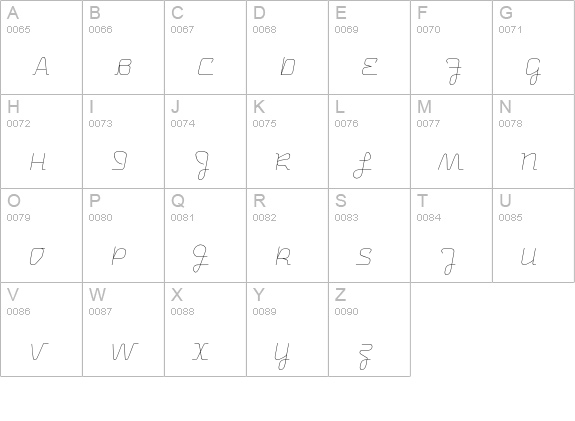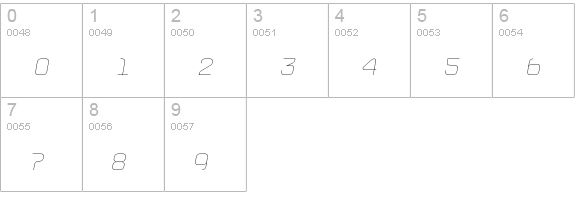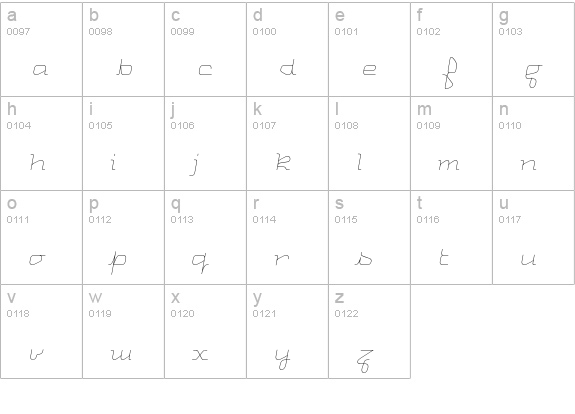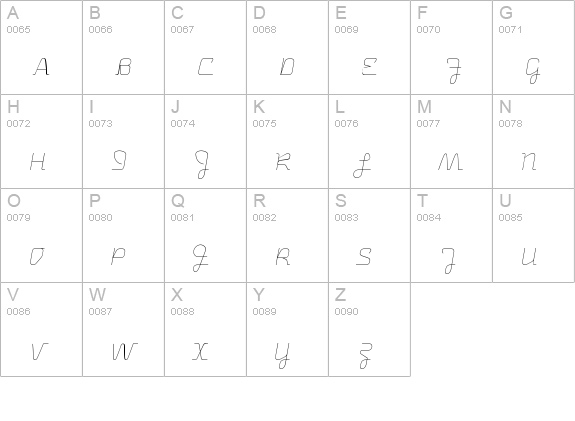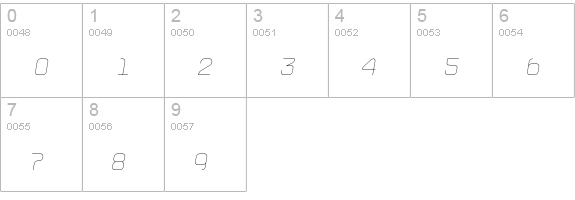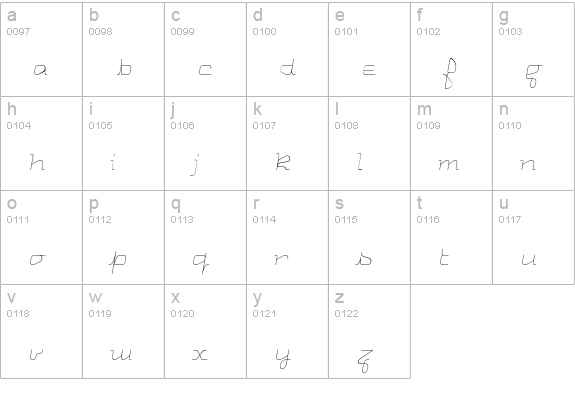
Uniglow-TenCursive Font Details
Uniglow-TenCursive is a beautifully designed font that exudes elegance and sophistication. Its flowing and graceful cursive style brings a touch of artistry to any project. Whether you're creating invitations, advertisements, or simply adding a touch of charm to your personal documents, Uniglow-TenCursive is the perfect choice. This font features smooth and continuous lines, capturing the essence of handwriting with its natural and organic feel. Each letter is meticulously crafted, ensuring a seamless and harmonious flow from one character to the next. The result is a font that effortlessly combines legibility with artistic flair. Uniglow-TenCursive is not only visually stunning but also incredibly versatile. Its clean and refined appearance makes it suitable for a wide range of applications, from formal business materials to creative and artistic projects. Whatever your design needs may be, this font will add a touch of sophistication and class. One of the best things about Uniglow-TenCursive is that it is absolutely free. Yes, you read that right – this exceptional font is freely available to download at FontsMarket.com. Now, you can enhance your designs without having to worry about any additional costs. This font allows you to unleash your creativity without any limitations or restrictions. So, why wait? Download Uniglow-TenCursive today and experience the beauty and versatility of this exceptional font. Whether you're a professional designer or a passionate hobbyist, this font is sure to become your go-to choice for all your typographic needs. Let Uniglow-TenCursive inspire your creativity and elevate your designs to new heights.